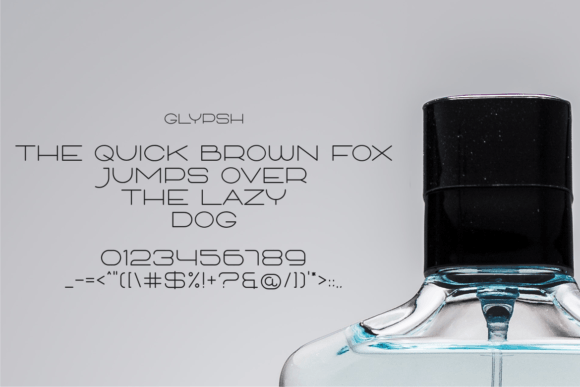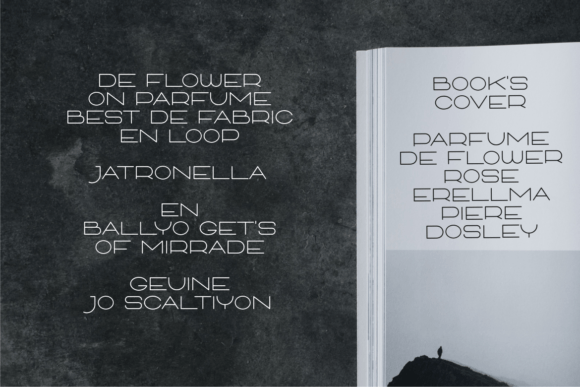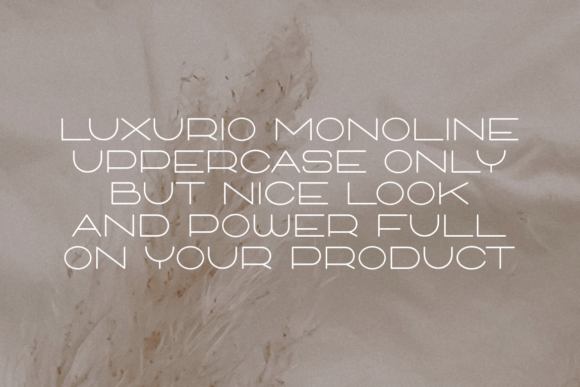
Introduction to Crowdy Monoletter Font
Crowdy Monoletter is a neat and stylish sans serif font.
Its natural and fresh look is perfect for creating elegant, classy designs .
Key Features of Crowdy Monoletter Font